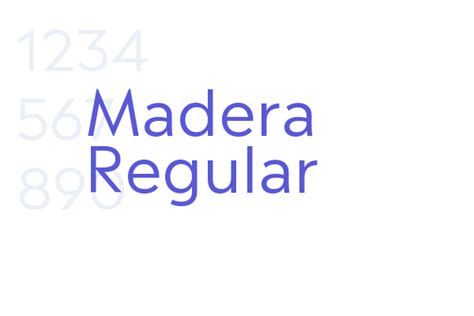
Hey there, font fanatics! Are you looking to add a touch of elegance and flair to your design projects? Well, you’ve stumbled upon the right place. Today, we’re diving deep into the world of the Madera font , a typeface that’s been making waves in the design community. We’ll cover everything from where to download it, to how to use it effectively, and even some fun facts about its history. So, buckle up, guys, and let’s get started on this Madera font adventure! Understanding the intricacies of the Madera font download process can significantly elevate your design work. Finding the perfect font can sometimes feel like searching for a needle in a haystack. But with Madera, you’re in for a treat. Its clean lines, sophisticated curves, and versatile nature make it a fantastic choice for a wide array of projects. Whether you’re a seasoned graphic designer, a budding entrepreneur, or just someone who loves playing around with fonts, this guide is tailor-made for you. We’ll explore the best sources for your Madera font download , ensuring you get the authentic version and avoid any potential pitfalls. We’ll also provide tips on how to install and use the font across different platforms and software. This guide is your ultimate companion to mastering the Madera font .
Before you begin the journey of a Madera font download , it’s helpful to understand what makes this font so special. Madera is often celebrated for its modern, yet timeless appeal. It strikes a perfect balance between readability and style, making it ideal for both headlines and body text. The font’s design incorporates a blend of sharp edges and graceful curves, creating a unique visual experience that captures attention. Its versatility allows it to shine in a wide range of applications, from branding and logo design to web content and print materials. The Madera font download opens up a world of possibilities for your creative projects. One of the key reasons why designers and creatives love Madera is its ability to adapt to different aesthetics. Whether you’re aiming for a minimalist, contemporary, or even a vintage look, Madera can seamlessly integrate into your designs. The font’s clean and uncluttered appearance ensures that your message remains the focal point, while still providing a touch of personality. The character set of the font is also quite comprehensive, typically including a full range of uppercase and lowercase letters, numerals, punctuation marks, and special characters. This extensive character set offers flexibility and control to the designers to accurately communicate ideas and cater to various project needs. Additionally, Madera often comes in various weights and styles, giving you even more creative freedom. You might find light, regular, bold, and even italic versions. This variety allows you to create visual hierarchies and emphasize different elements within your design.